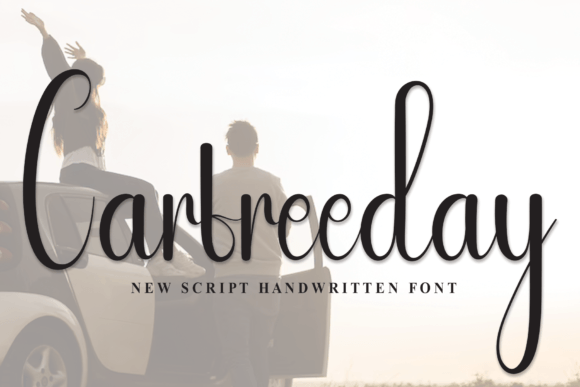
The Sweet Spot: Discovering Carfreeday Font
I’ll never forget the time I was working on a wedding invitation project, and my client asked for a font that was “sweet, friendly, and not too formal.” I scoured the internet, tried out dozens of fonts, but nothing seemed quite right. That was until I stumbled upon Carfreeday Font. 💕
Carfreeday is a sweet and friendly handwritten font that’s perfect for adding a personal touch to your designs. In this article, I’ll share my experience with Carfreeday, its features, and how to make the most of it in your designs.
- ✨ Fresh and neat design that’s perfect for wedding invitations, cards, and more
- ✅ Easy to read and understand, even at small sizes
- 💕 Friendly and approachable feel that’s sure to delight your audience
- 🎉 Highly versatile and can be used for a wide range of design projects
While Carfreeday is an excellent font, it’s not perfect. Here are a few things to keep in mind:
- 🤔 Limited character set: Carfreeday is a single-weight font, which means you won’t have access to multiple weights or styles.
- ⚠️ Not ideal for body text: While Carfreeday is easy to read, it’s best suited for headlines, titles, and short paragraphs.
A Practical Guide: Using Carfreeday in Your Designs
Exploring Alternatives: Similar Fonts to Carfreeday
The Story Behind Carfreeday
Carfreeday was designed with love and care by a talented type designer who wanted to create a font that would bring joy and warmth to designs. The font’s friendly and approachable feel makes it perfect for a wide range of projects, from wedding invitations to social media graphics.
Q: What is Carfreeday Font?
A: Carfreeday Font is a sweet and friendly handwritten font ideal for adding a personal touch to your designs.
Q: Is Carfreeday suitable for body text?
A: While Carfreeday is easy to read, it’s best suited for headlines, titles, and short paragraphs.